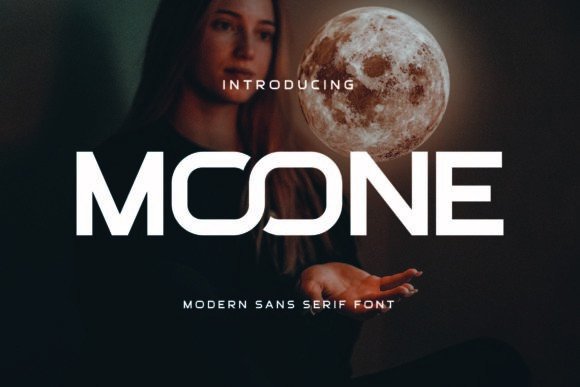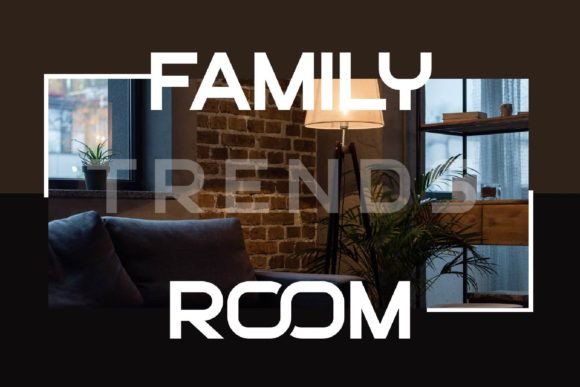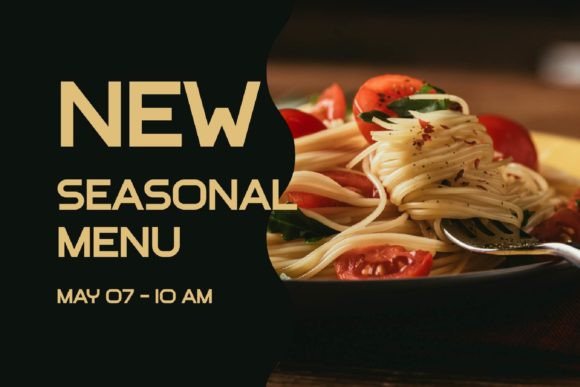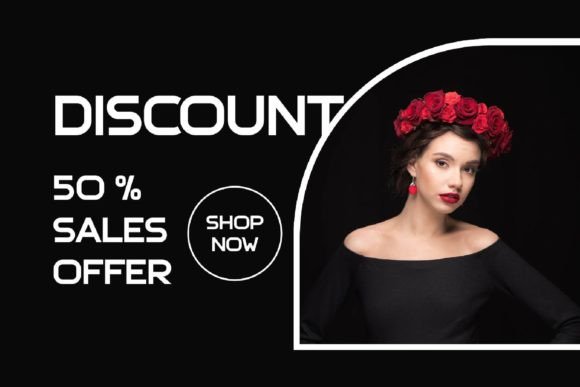
Moone Font: Modern Sans Serif for Minimalist Logo Design
About the Moone Font
Unleash your creativity with Moone Font, a versatile font perfect for a wide range of applications. Moone is a sans serif font, inspired by the famous minimalist logo perfect for the purposes of designing templates, brochures, videos, advertising branding, logos, invitation, layout design, elegant crafting, beauty design and others.
Moone’s clean lines and minimalist aesthetic make it ideal for headlines, logos, and short-form text in branding materials, such as business cards or social media graphics. Its elegance also suits invitations and packaging designs where a sophisticated yet modern feel is desired. However, its limited character set and relatively thin stroke weight make it unsuitable for body text or long paragraphs. Small sizes may also lose legibility.
Consider pairing Moone with a classic serif like Garamond for a sophisticated contrast, or a geometric sans-serif like Futura for a consistently modern feel. For a softer touch, a script font such as Allura could provide a complimentary elegant balance.
Moone projects a modern, minimalist, and elegant personality; it is best suited for brands seeking a clean, sophisticated image. Avoid using it in contexts requiring high readability over extensive text blocks.
Moone Font Usage Examples
Moone Font Example